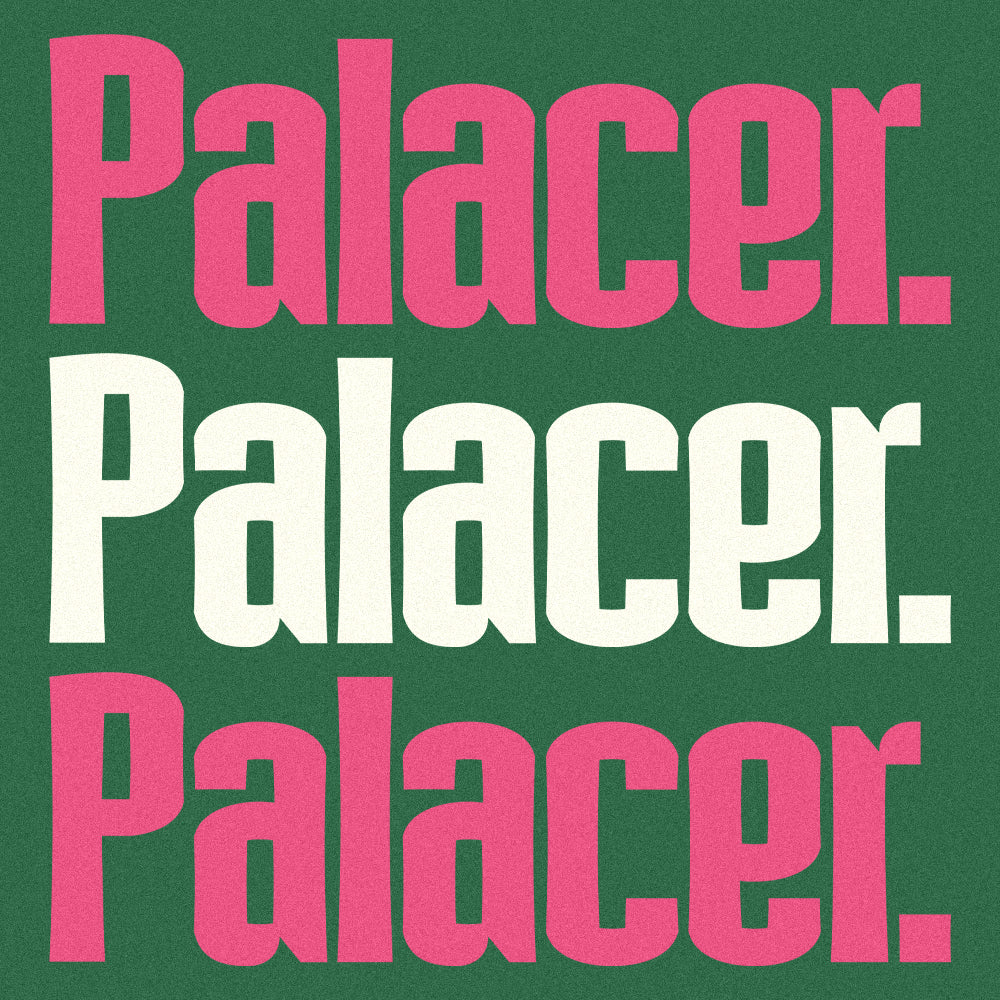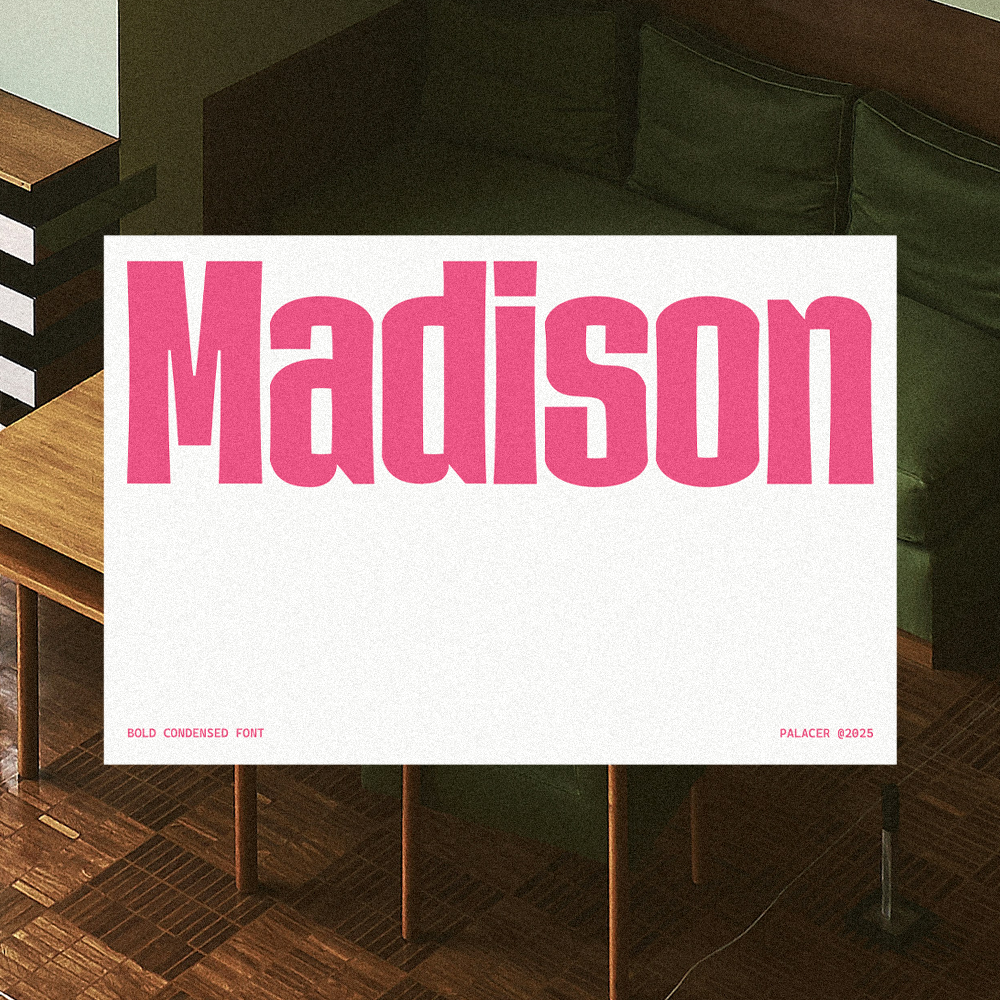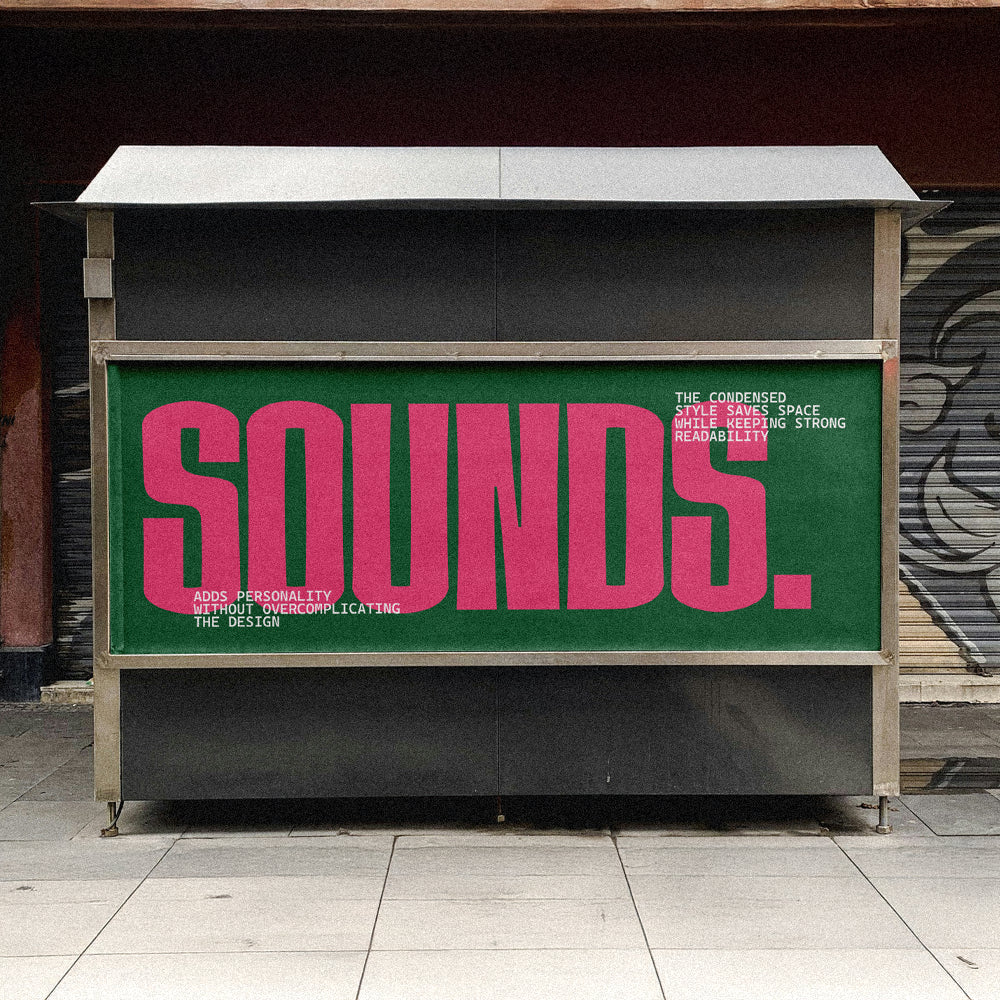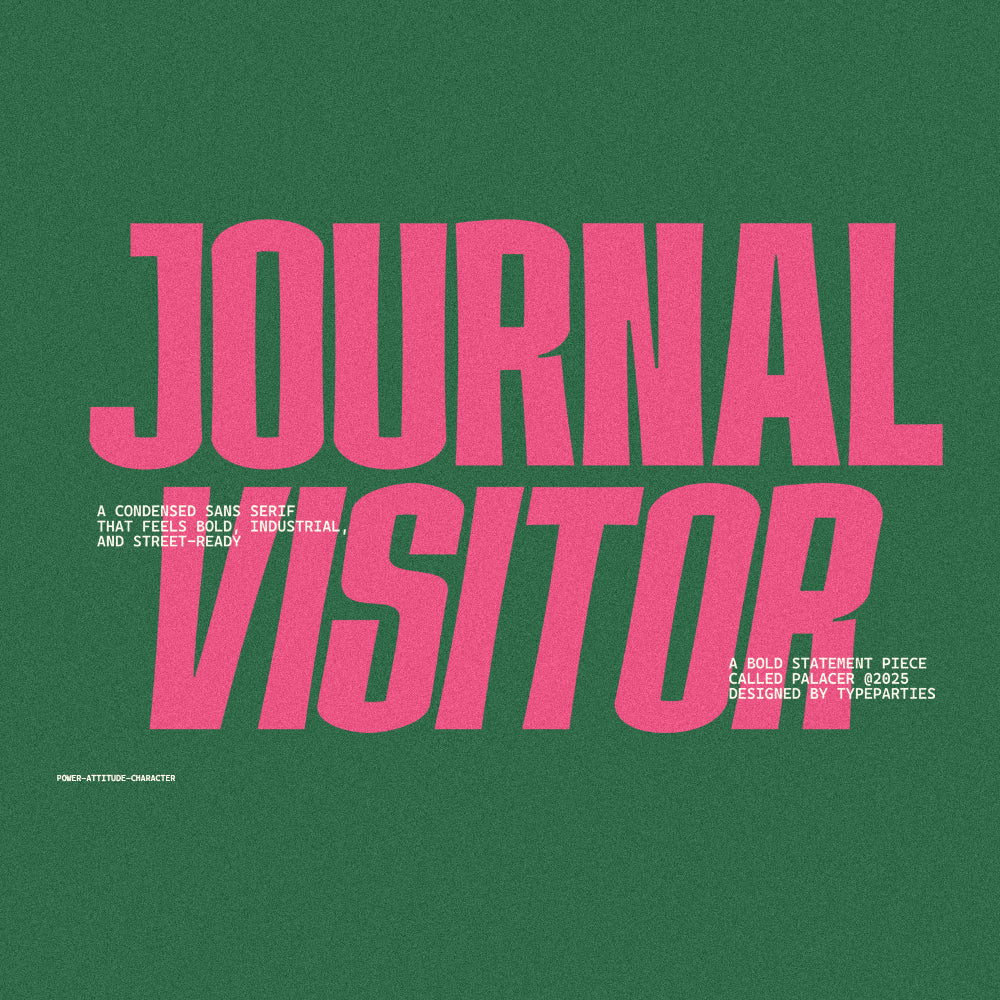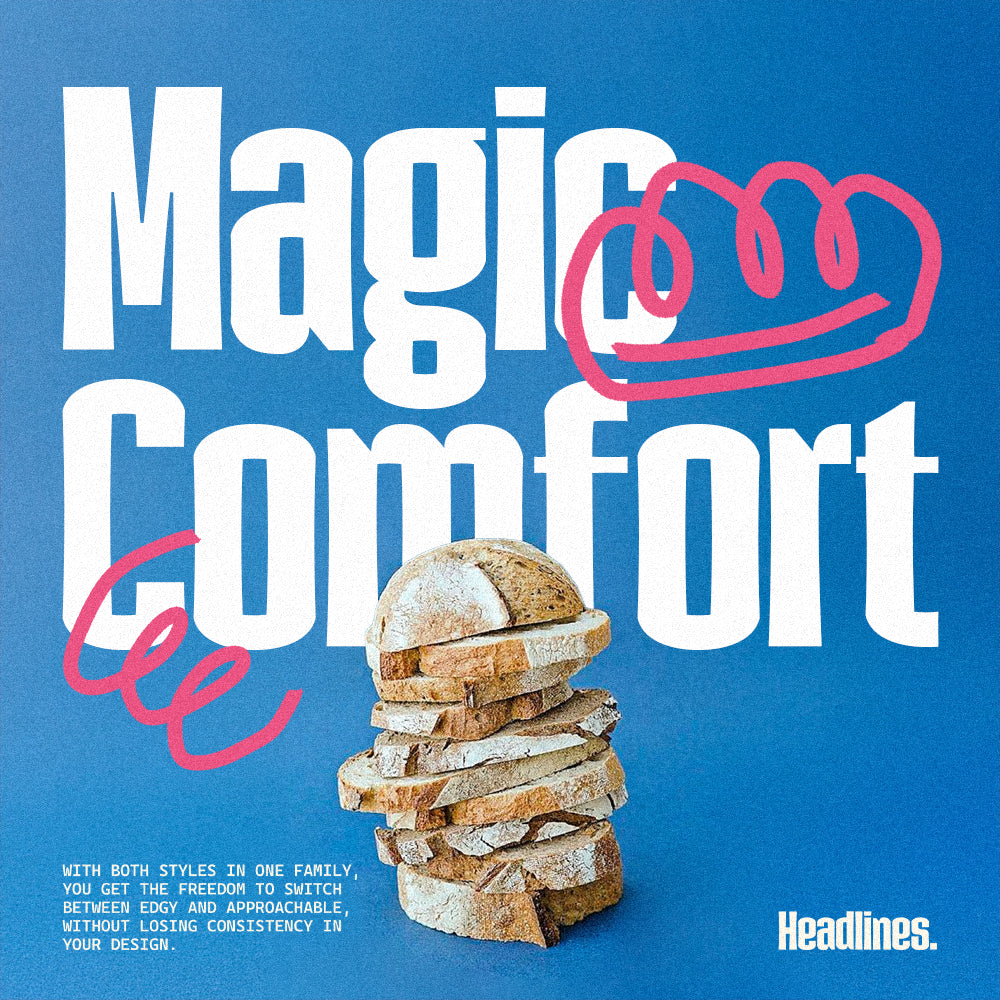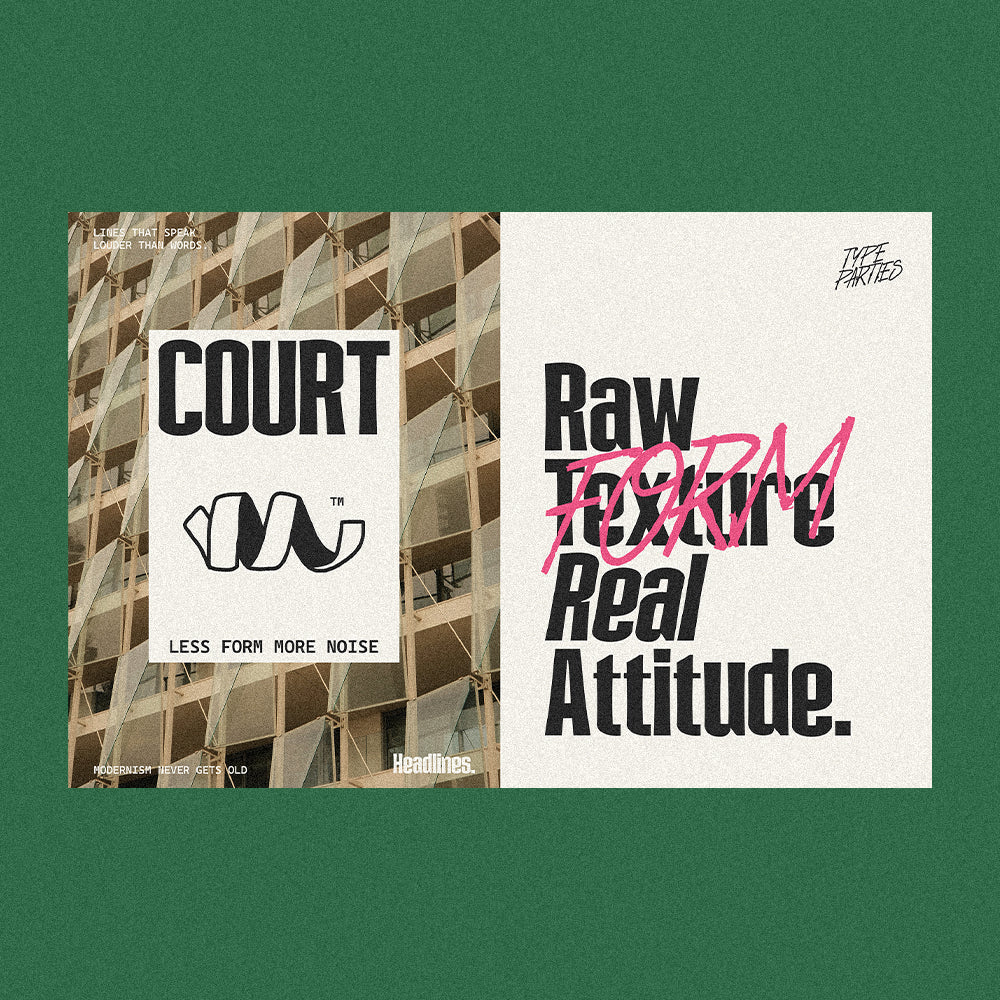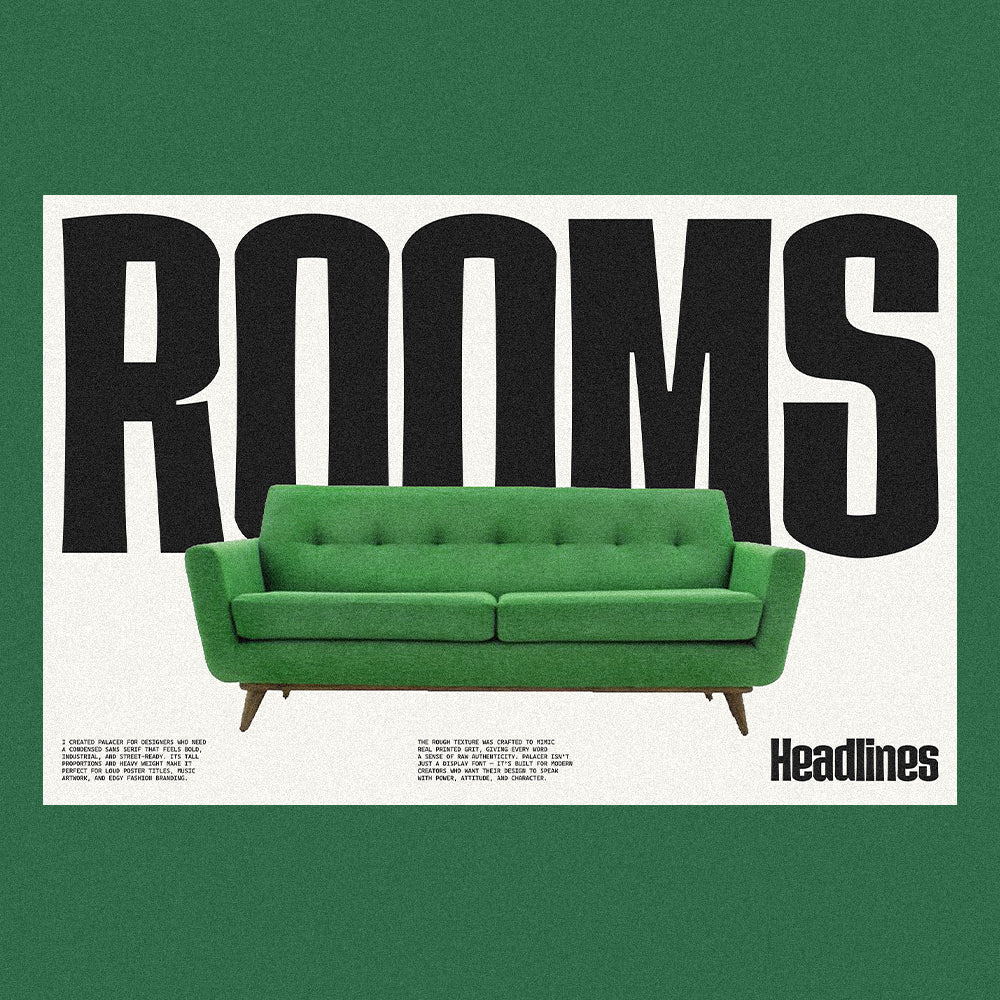
Palacer - Modern Display Font
Palacer is a bold, condensed sans serif typeface featuring tall letterforms and heavy strokes with a slightly distressed texture. It includes two styles—Regular for a strong statement and Rounded for a friendlier appearance—making it versatile for various design needs.